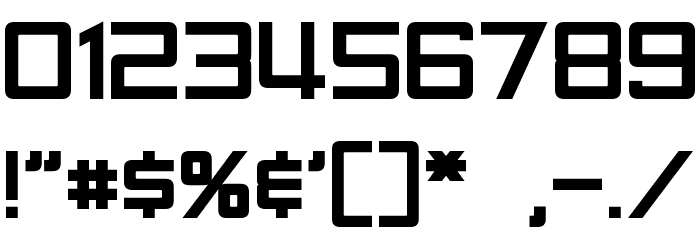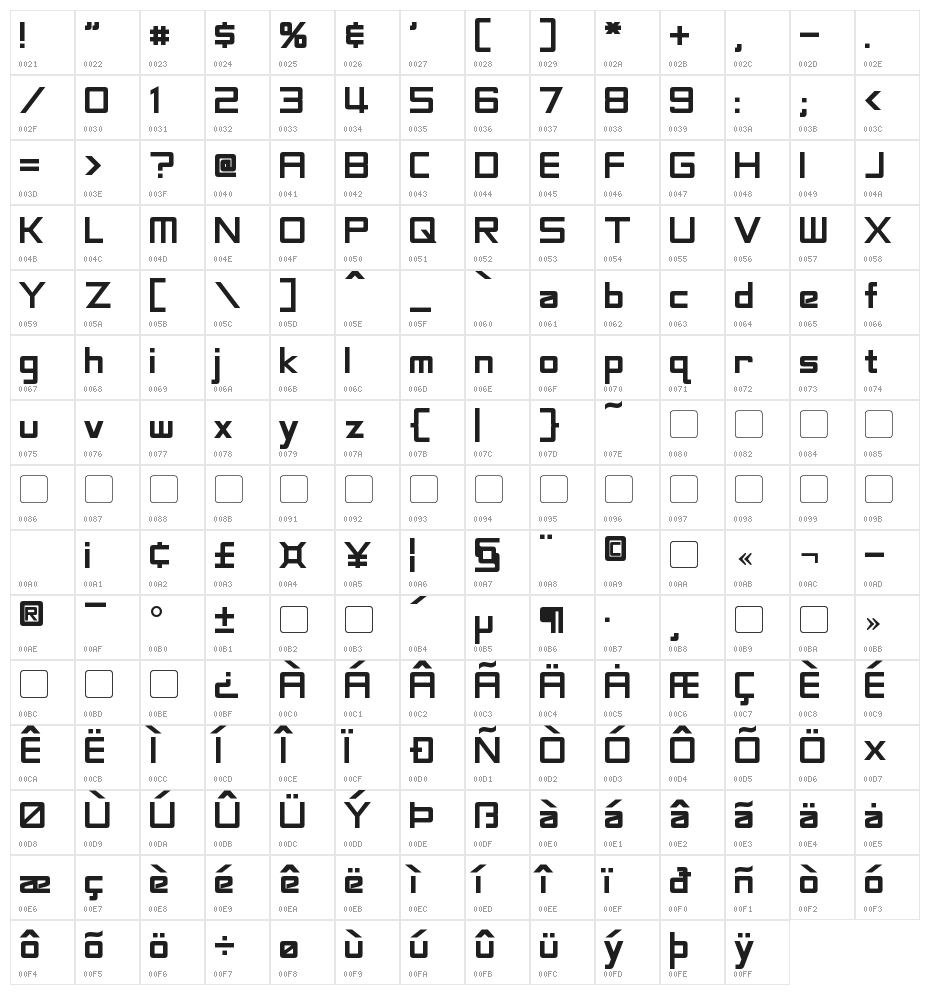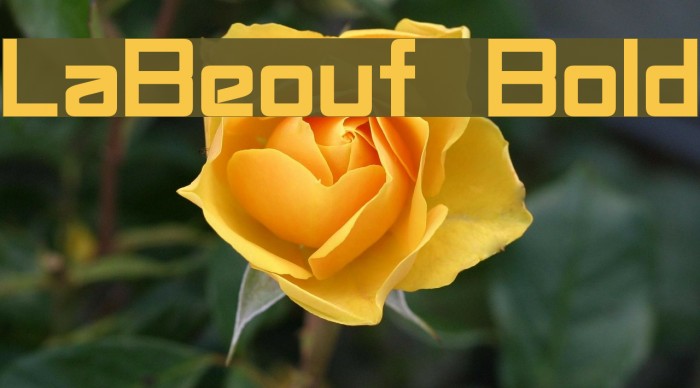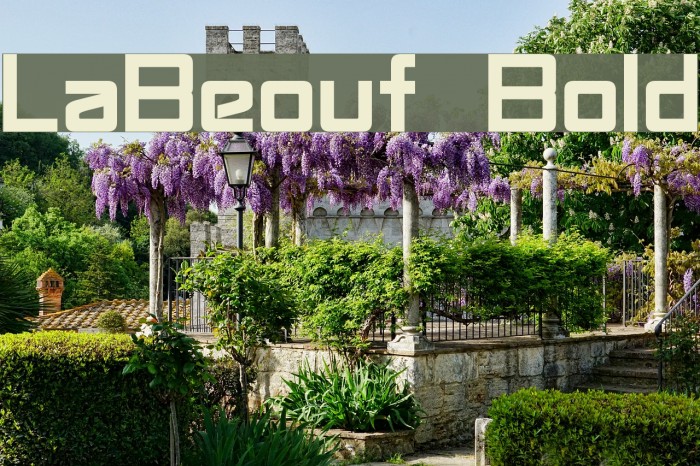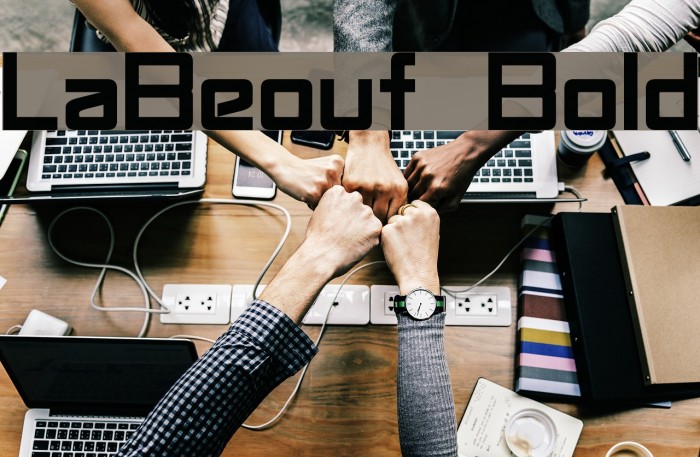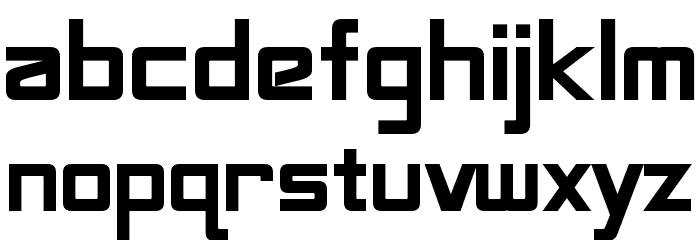
LaBeouf Bold Font
LaBeouf Bold Description
This font features a bold, geometric design with a modern and clean aesthetic. The characters are constructed with straight lines and sharp angles, giving it a futuristic and technical feel. The uppercase letters are uniform in height, while the lowercase letters maintain a consistent baseline, enhancing readability. The numerals are distinct and align well with the overall style, making them suitable for digital displays. Special characters are designed with the same geometric precision, ensuring a cohesive look across all glyphs. This font's boldness and clarity make it ideal for impactful headlines and branding.
| Use Case | Headlines, Logos, Digital Displays |
| Proposed Projects | Ideal for technology branding, digital interfaces, and modern advertising campaigns. |